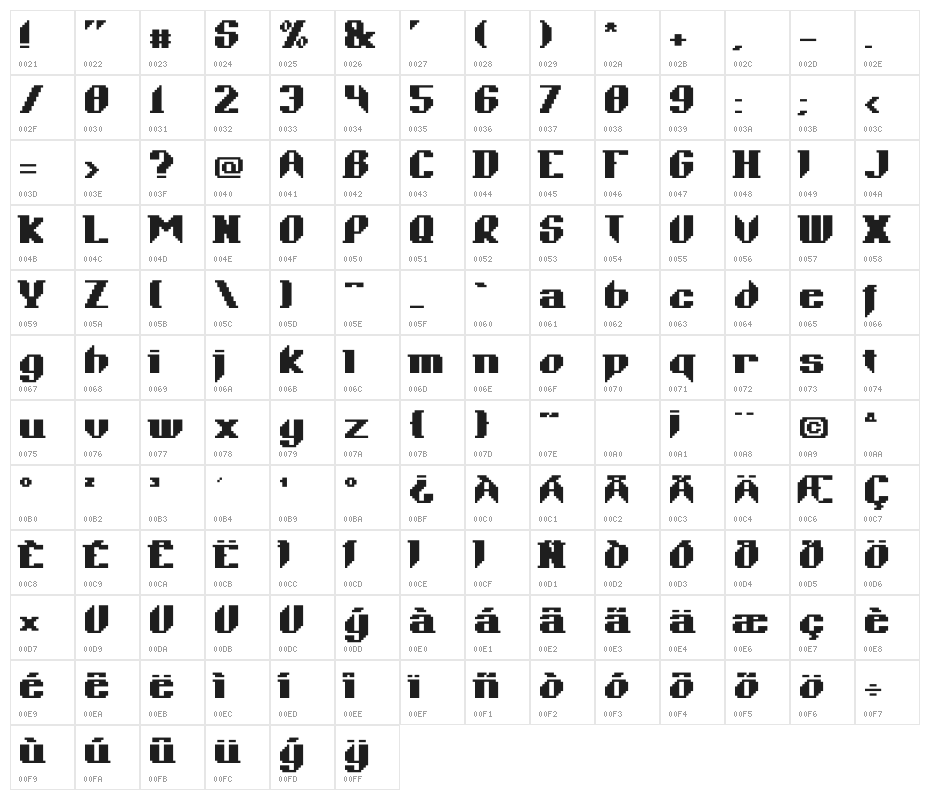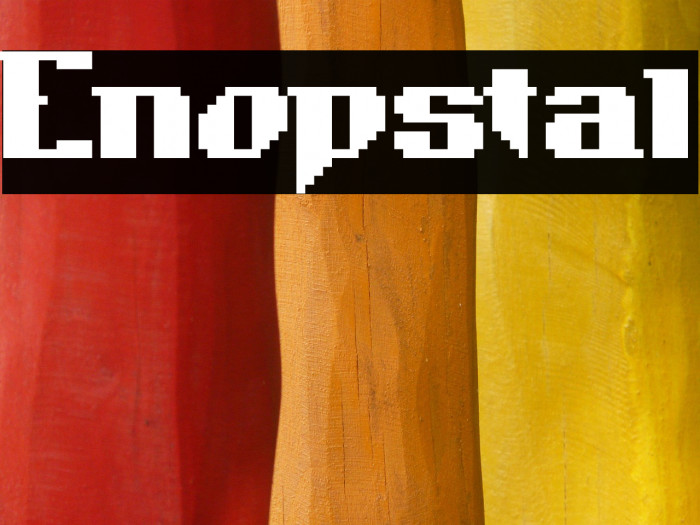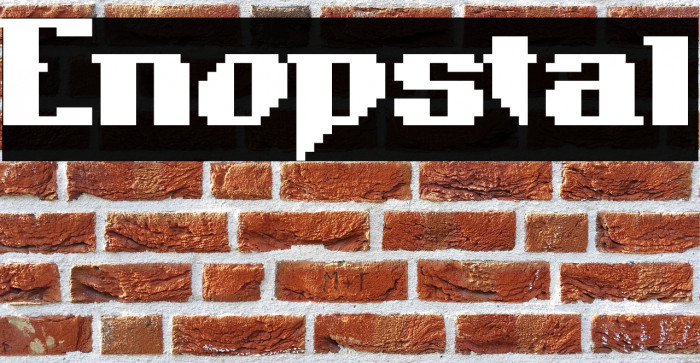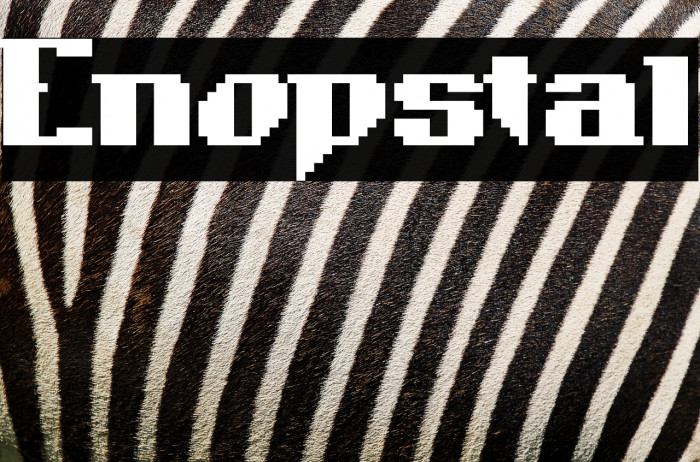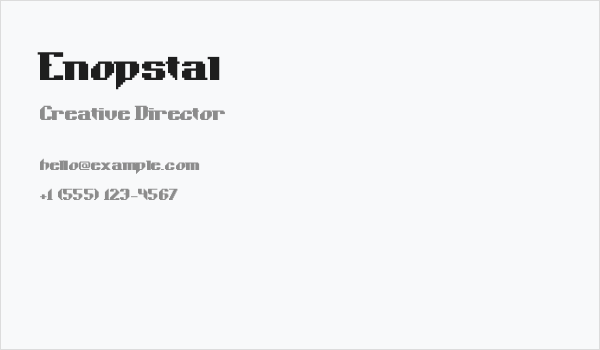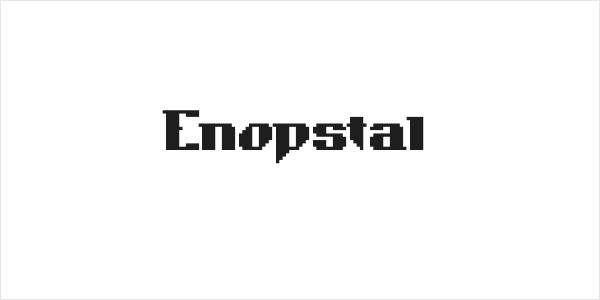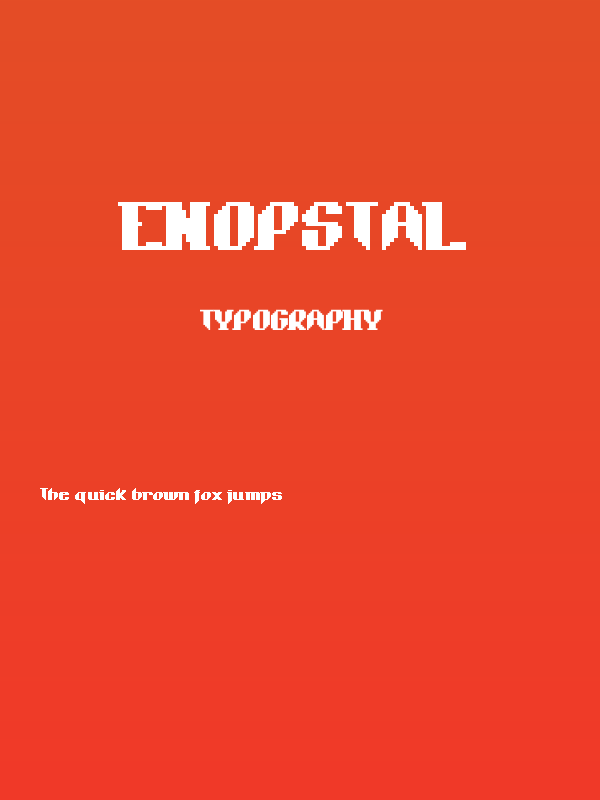
Enopstal Font
Enopstal Description
This font exhibits a bold and angular design, characterized by its sharp, geometric edges and blocky appearance. The uppercase and lowercase letters maintain a consistent height, creating a uniform look across the text. The numerals and special characters follow the same angular style, enhancing the font's cohesive aesthetic. Its distinct, pixelated form gives it a retro, digital feel, reminiscent of early computer graphics or video game typography. The font's strong presence makes it suitable for attention-grabbing headlines or titles.
| Overall Style | Retro, Digital |
| Proposed Projects | Ideal for video game graphics, retro-themed posters, or digital art projects. |